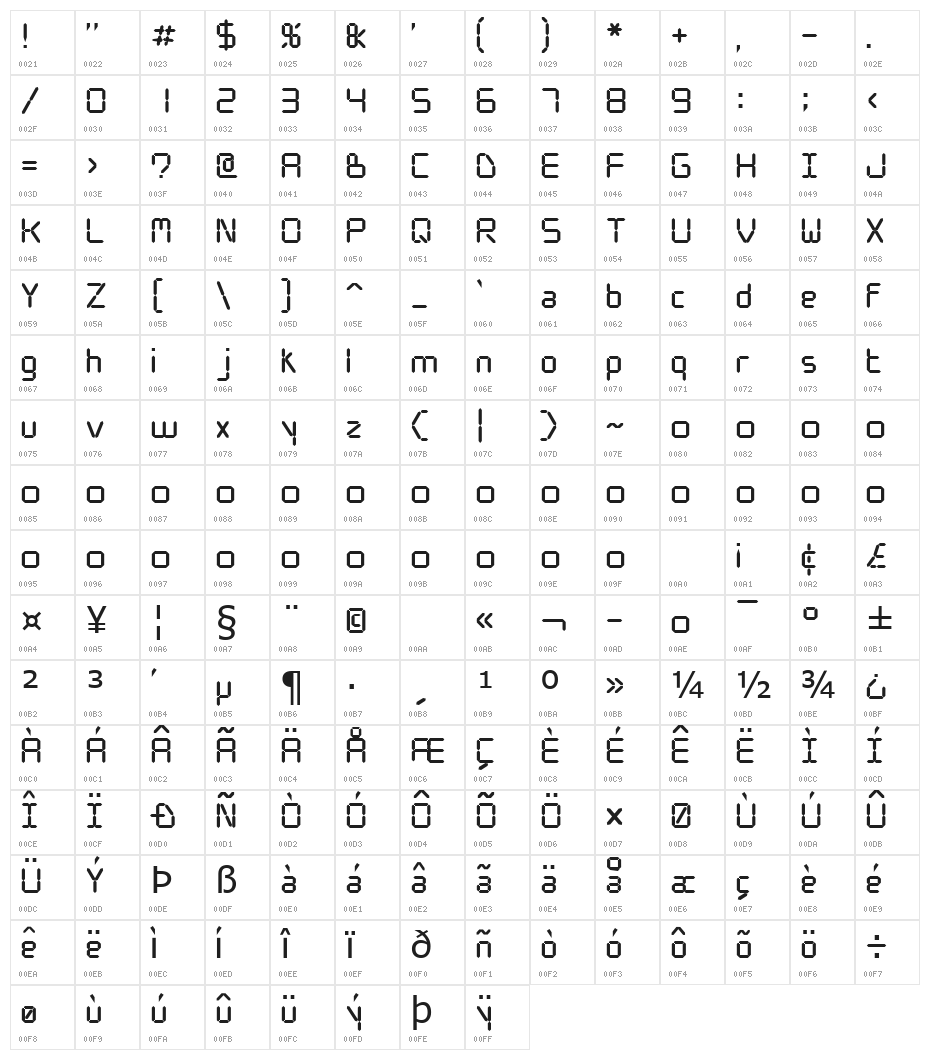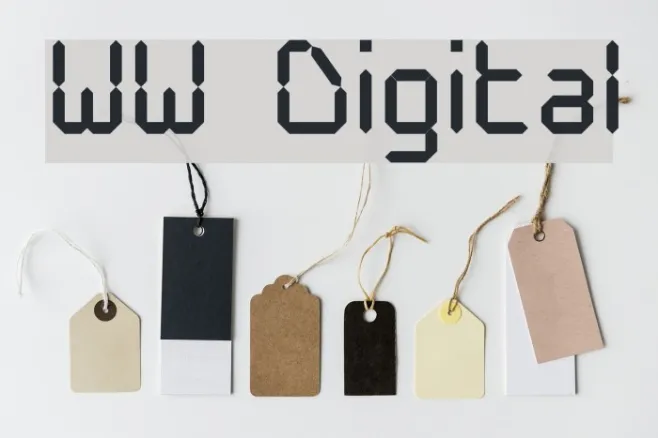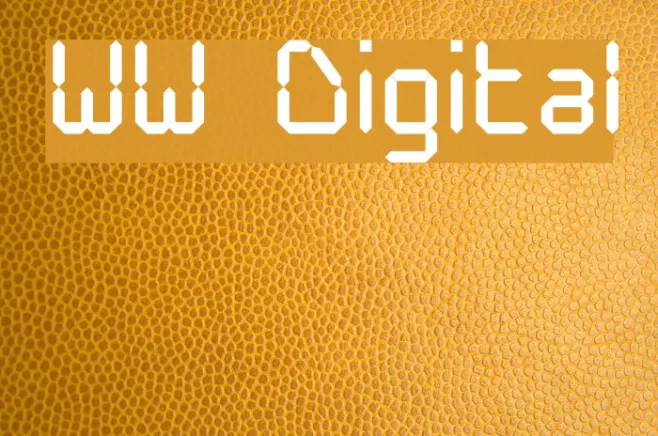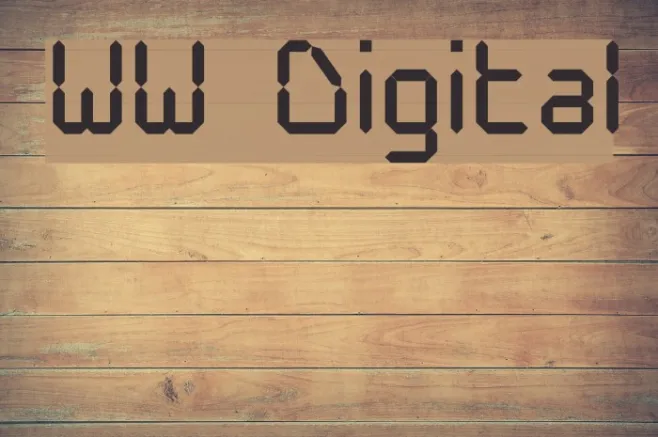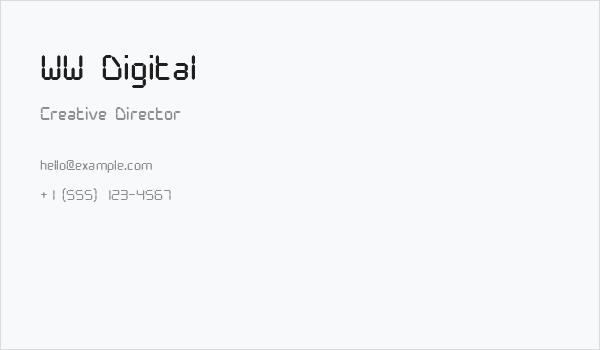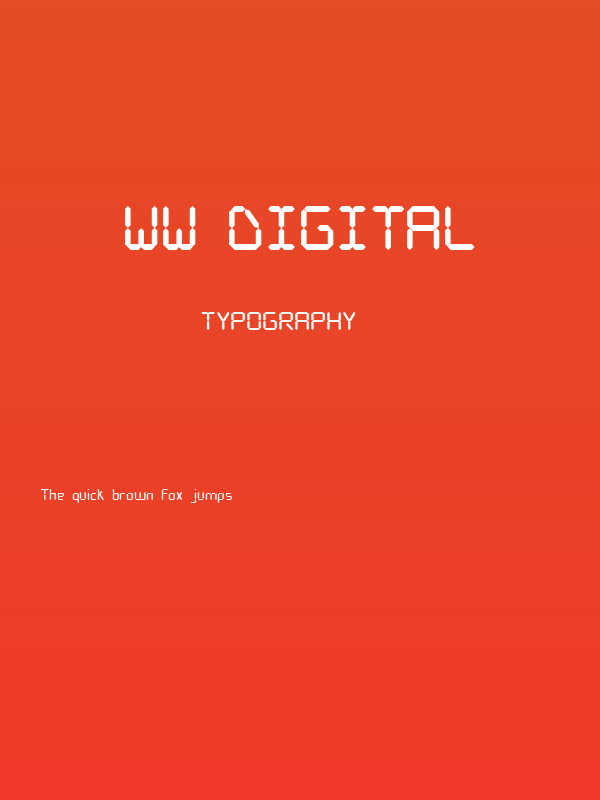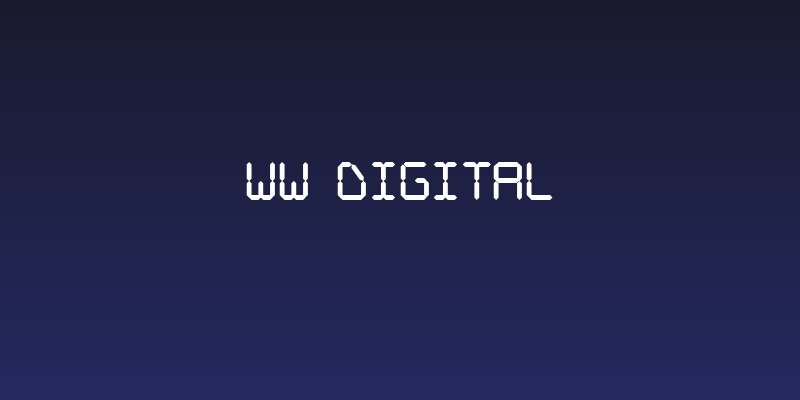
WW Digital Font
WW Digital Description
This font features a digital, futuristic style reminiscent of LED displays and digital clocks. The characters are composed of geometric shapes with sharp angles and a uniform stroke width, giving it a technical and modern appearance. The uppercase and lowercase letters maintain a consistent height, enhancing readability. The numerals and special characters follow the same design principles, ensuring a cohesive look across all elements. This font's distinct style makes it ideal for projects that require a tech-savvy or digital aesthetic.
| Use Case | Headlines, Logos, Digital displays |
| Proposed Projects | Ideal for digital interfaces, tech branding, futuristic posters, and electronic-themed events. |